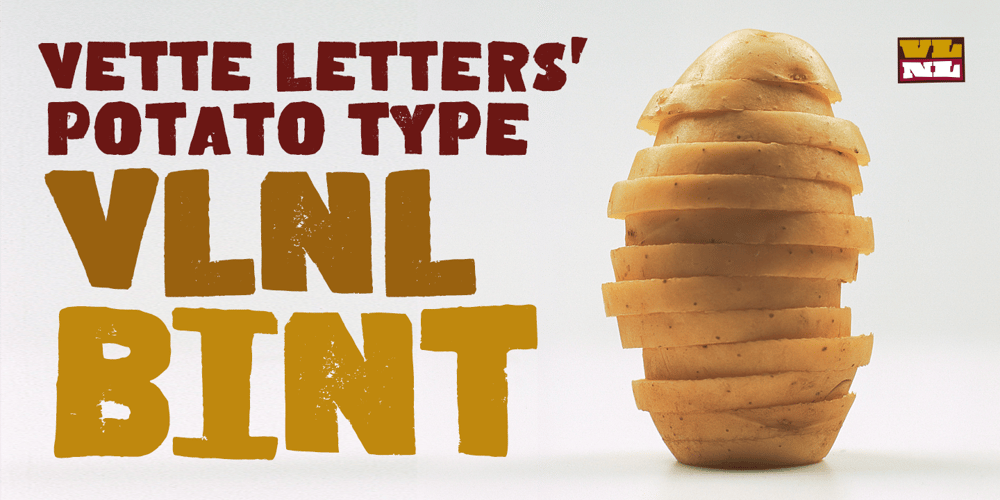
VLNL Bint Font Family was designed by Donald Roos and published by VetteLetters. VLNL Bint contains 1 styles and family package options. Kornelis de Vries, a headmaster from the Dutch province of Friesland, cultivated new potato breeds that he named after pupils in his school. In the early 1900s he came up with the tasty Bintje (a Frisian girl’s name) and it became a big success – in Belgium and France it has remained the most popular potato for french fries to this day, more than a century since its introduction.Donald Roos took 10 kilos of fresh Bintje potatoes and cut the Bint typeface by hand with a short, sharp knife. He then inked each character once and printed it twice; the second, lighter printing is accommodated in the lower case alphabet. The Bint family offers a script to make the letters bounce up and down the baseline; with OpenType functionality the font randomly chooses each character from the upper- or lowercase alphabet. ‘Tabular lining figures’ will activate a series of negative numerals in boxes; ‘Discretionary ligatures’ activates specially designed letter combinations like ‘www’ as well as arrows and stars. Bint has a distinct, slightly rough handmade appearance, making it useful for a wide range of designs.